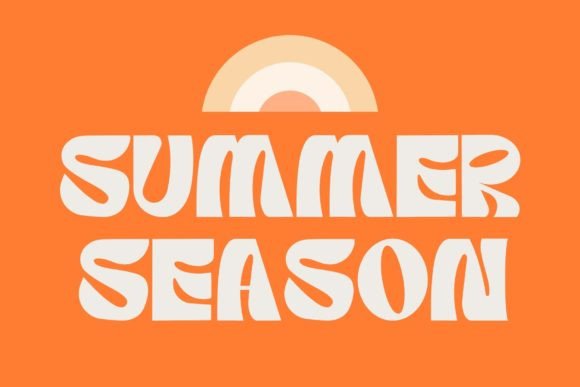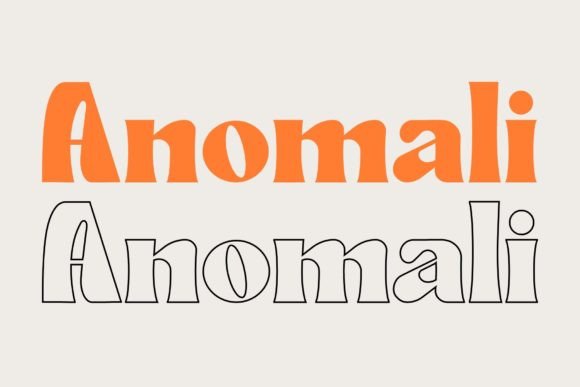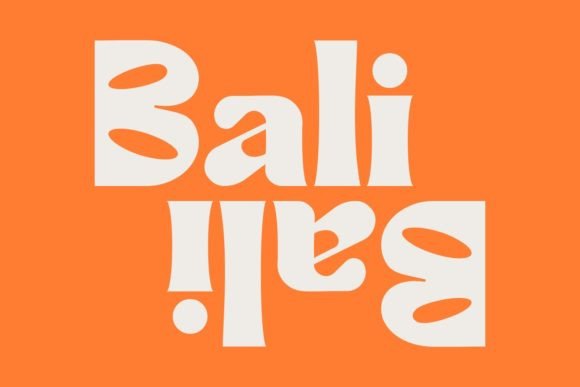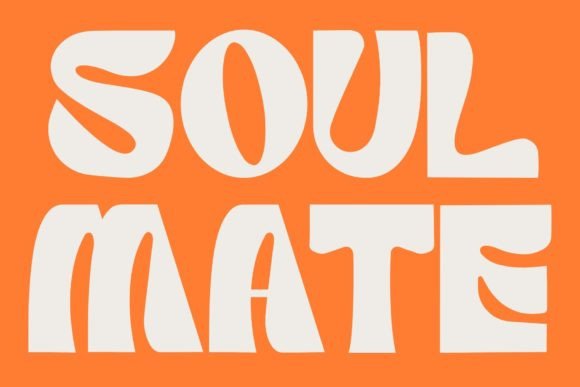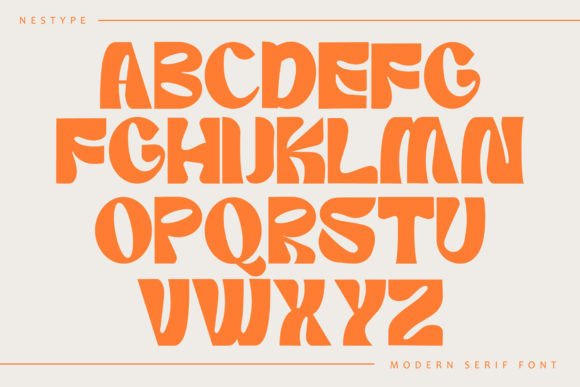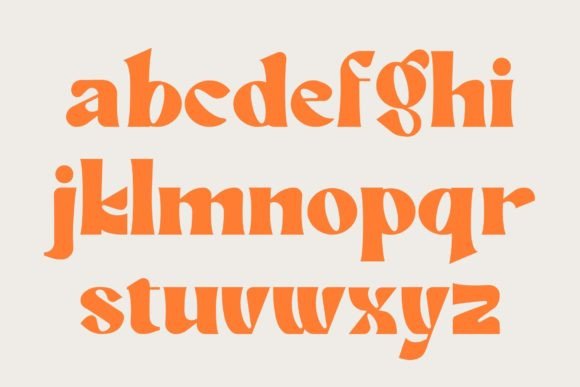
Introduction to Quiny Font
As a designer, you know that moment when a font finally clicks, and your entire project comes together. It’s the thrill of seeing your vision take shape, and Quiny Font is one of those magical moments waiting to happen. With its bold, modern serif design, Quiny Font adds a touch of retro sophistication to any creative project, making it perfect for designers who crave something unique and stylish.
Whether you’re working on a graphic design project or creating a stunning visual identity, Quiny Font is an invaluable resource. Its versatility and high quality make it an ideal choice for designers who want to elevate their designs without breaking the bank. And the best part? Quiny Font is available for free download, so you can experiment with it without worrying about licensing fees.
So, what are you waiting for? Discover the groovy vibe of Quiny Font and take your designs to the next level. With its transparent background and endless design possibilities, Quiny Font is the perfect addition to your design toolkit.
- Features a unique, modern design with clean lines and minimal ornamentation
- Includes multiple weights and styles to suit various design needs
- Perfect for use in graphic design, digital art, and other creative applications
Honest Review: Quiny Font
I recently had the chance to work with the Quiny Font for a creative project and I must say, I was quite impressed. This high-quality font is a great addition to any designer’s toolkit, offering a unique and stylish look that’s sure to elevate your design work. One of the things that stood out to me was the transparent background, which made it easy to integrate into my design without any issues.
- Unique and stylish design that’s perfect for creative projects
- High-quality font that’s clear and easy to read
- Transparent background makes it easy to integrate into designs
- Not as versatile as some other fonts on the market
- May not be suitable for complex or large-scale designs
- Some users may find the font’s style a bit too bold or overpowering
Overall, I would highly recommend the Quiny Font to designers looking for a unique and stylish addition to their toolkit. While it may have some limitations, its high-quality design and transparent background make it a valuable resource for any creative project.
Use Quiny Font to add a touch of sophistication to your designs.
Combine Quiny Font with other design elements to create a unique look.
Experiment with different font sizes and styles to achieve the desired effect.
Quiny Font is perfect for:
Creating eye-catching headings and titles.
Adding a touch of elegance to invitations and greeting cards.
Designing logos and branding materials.